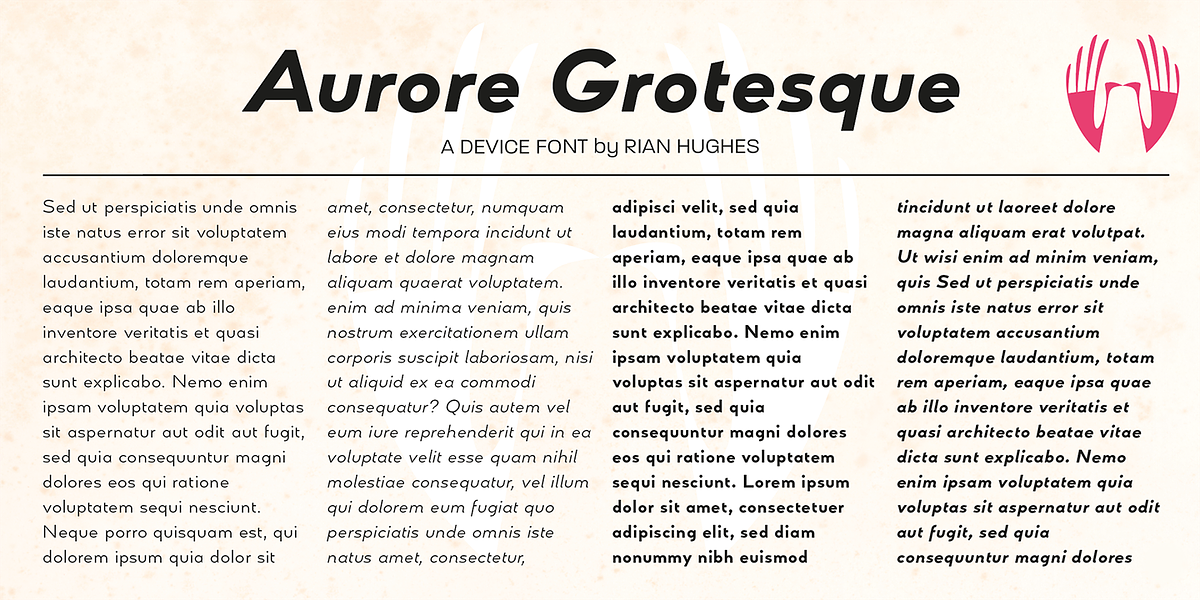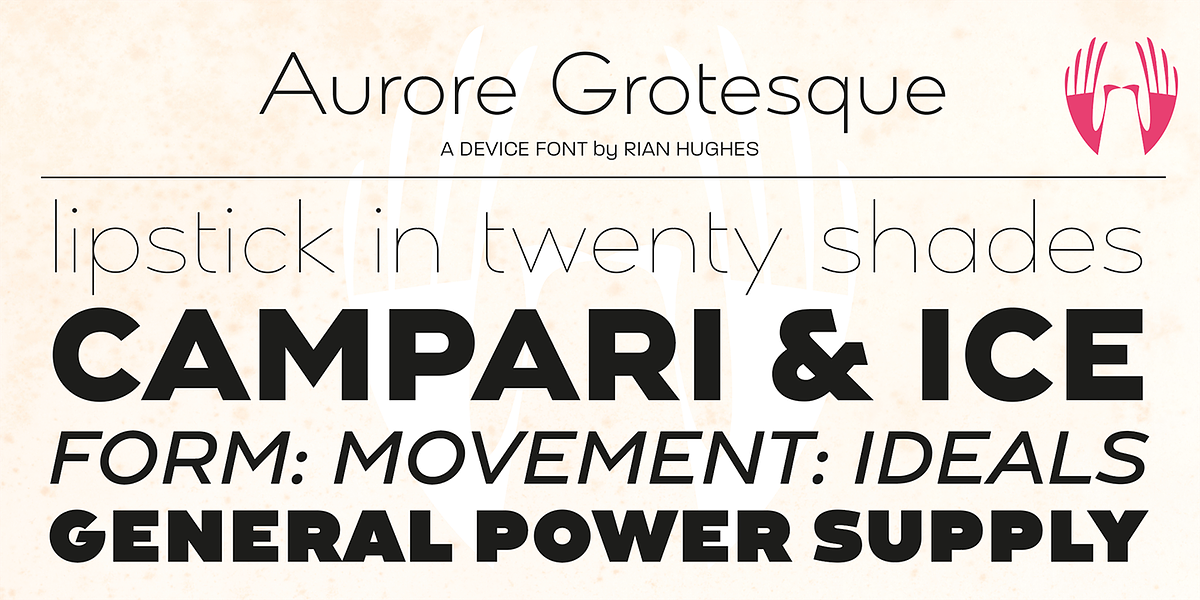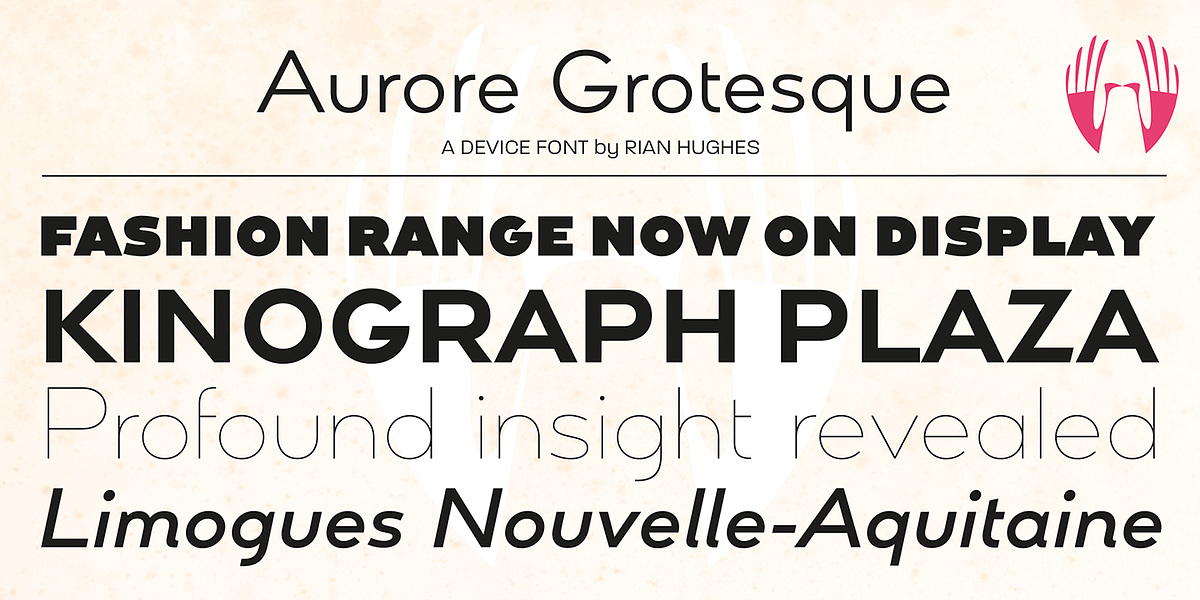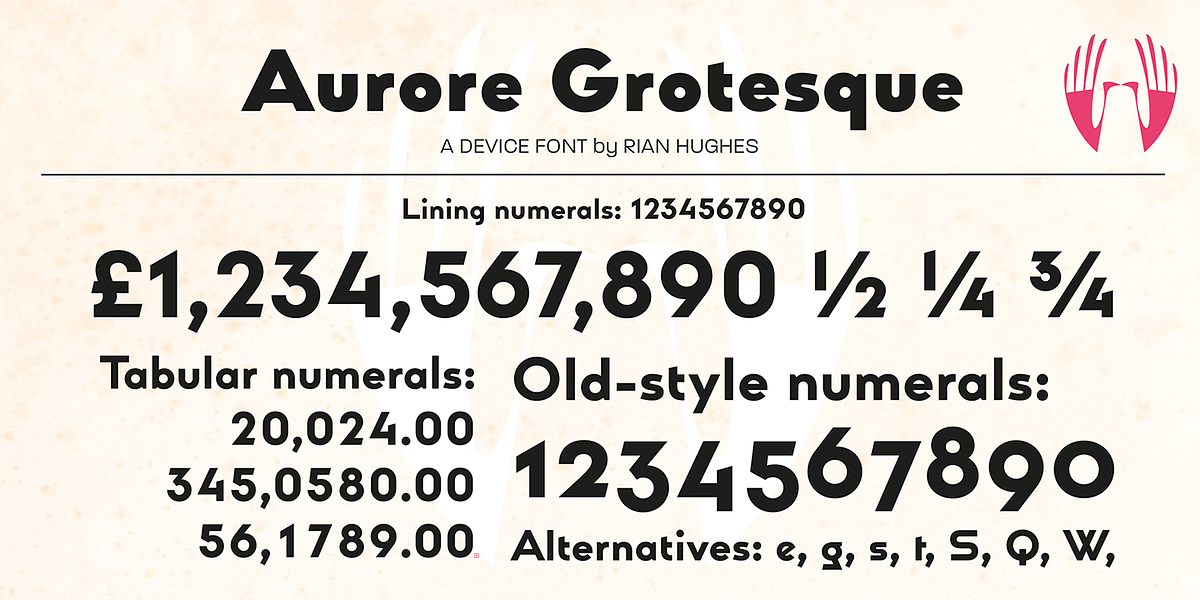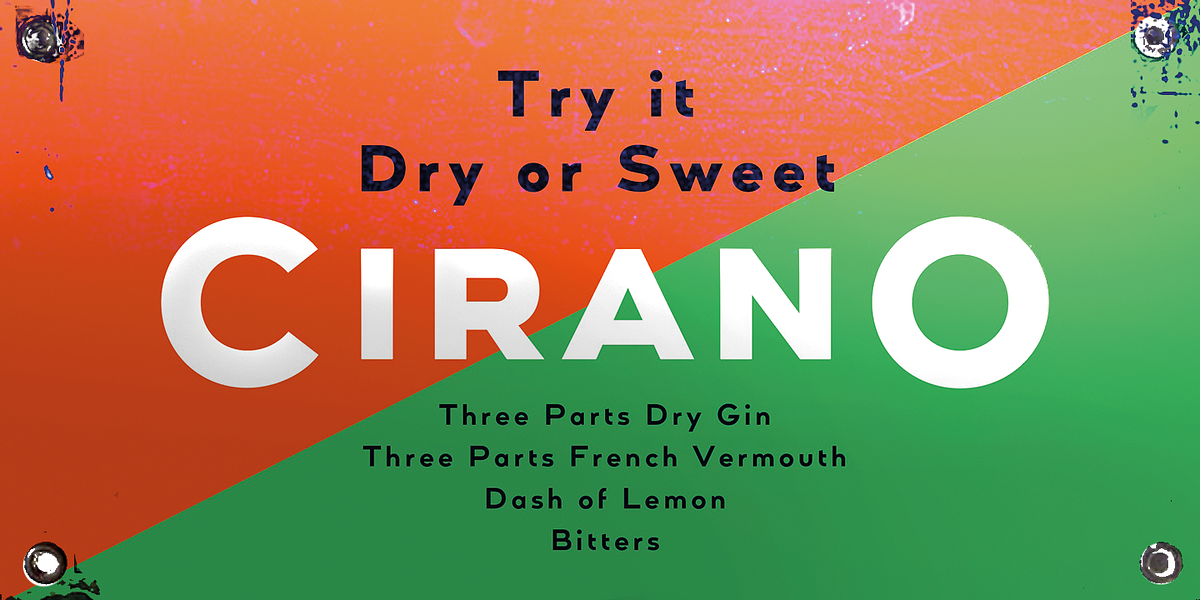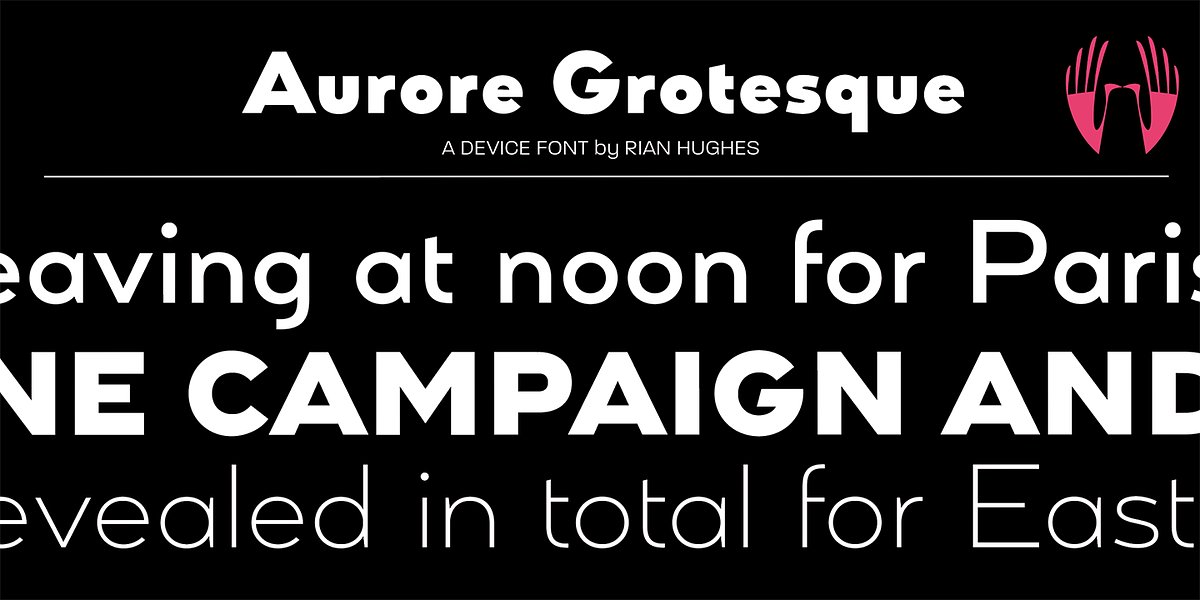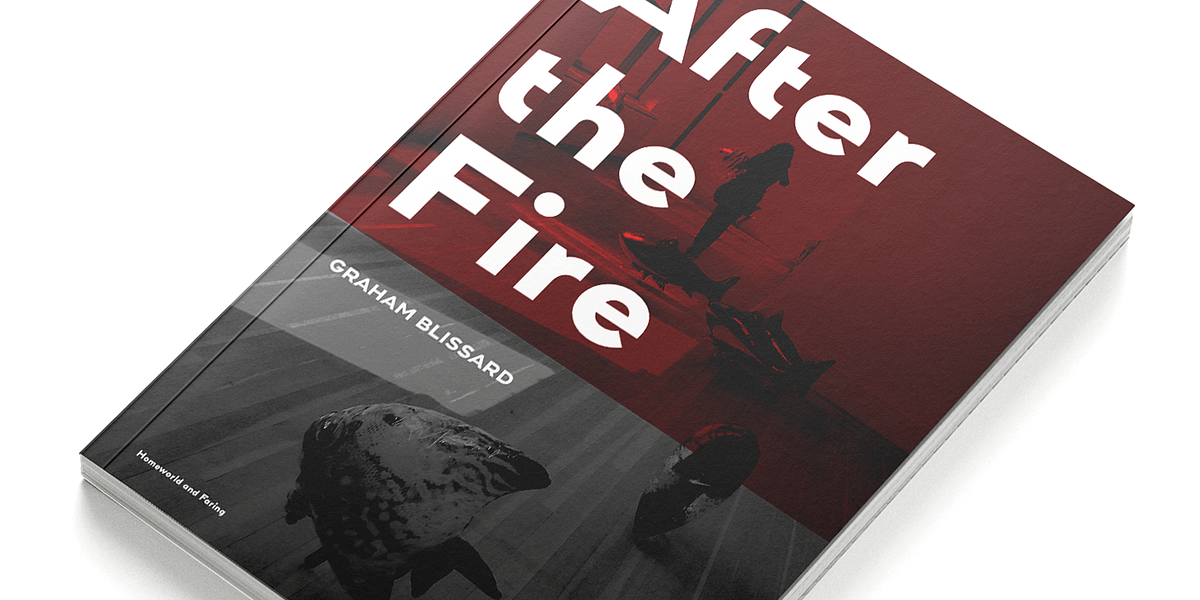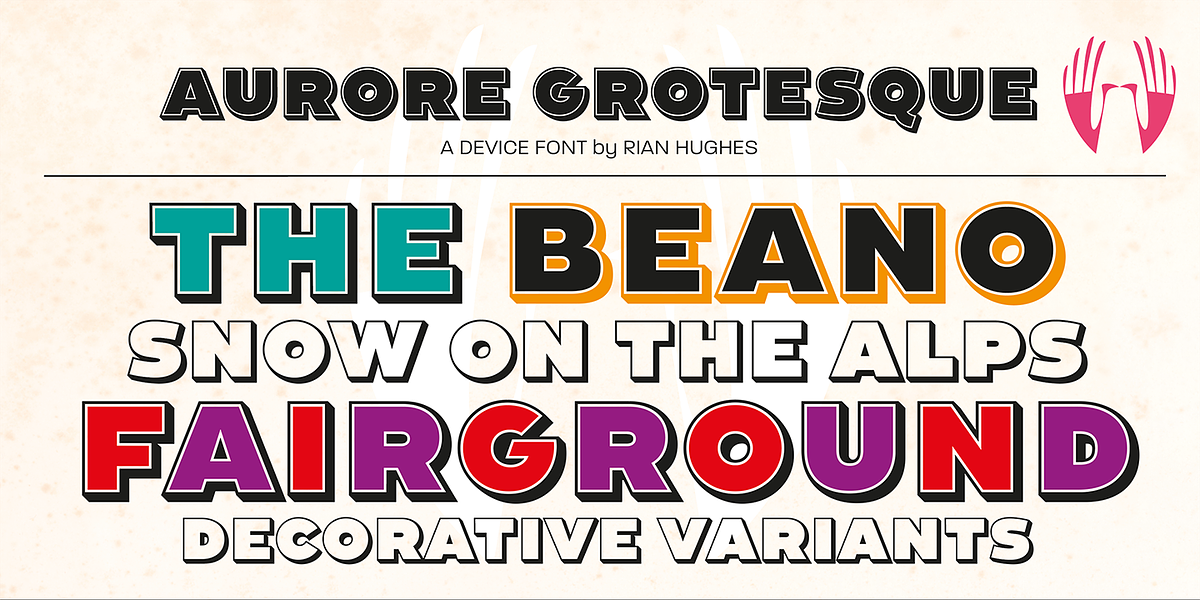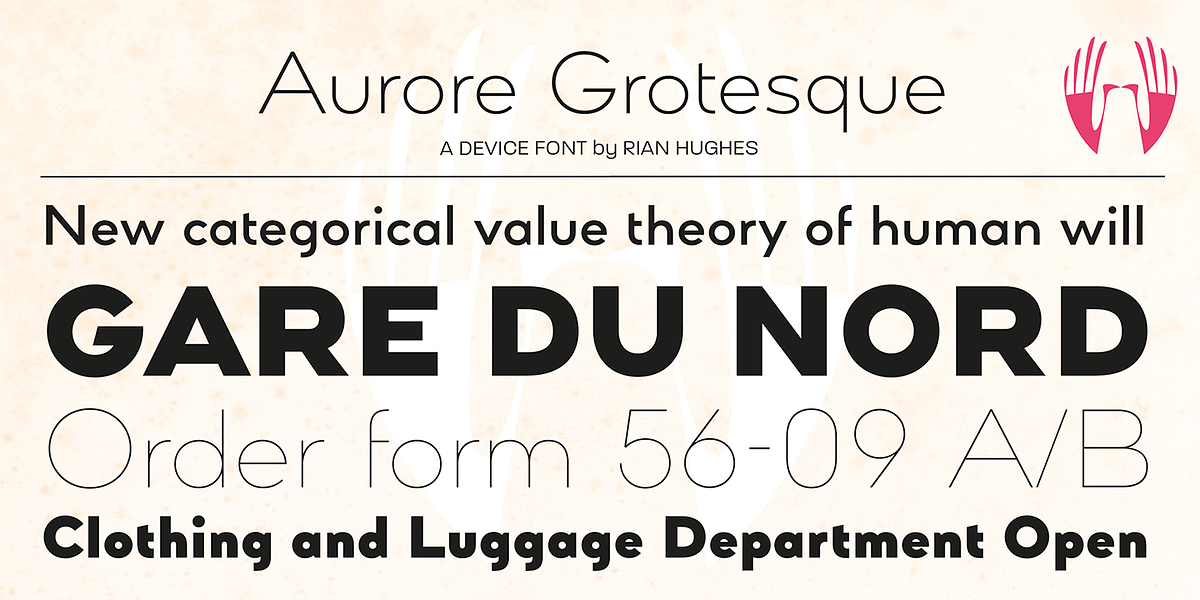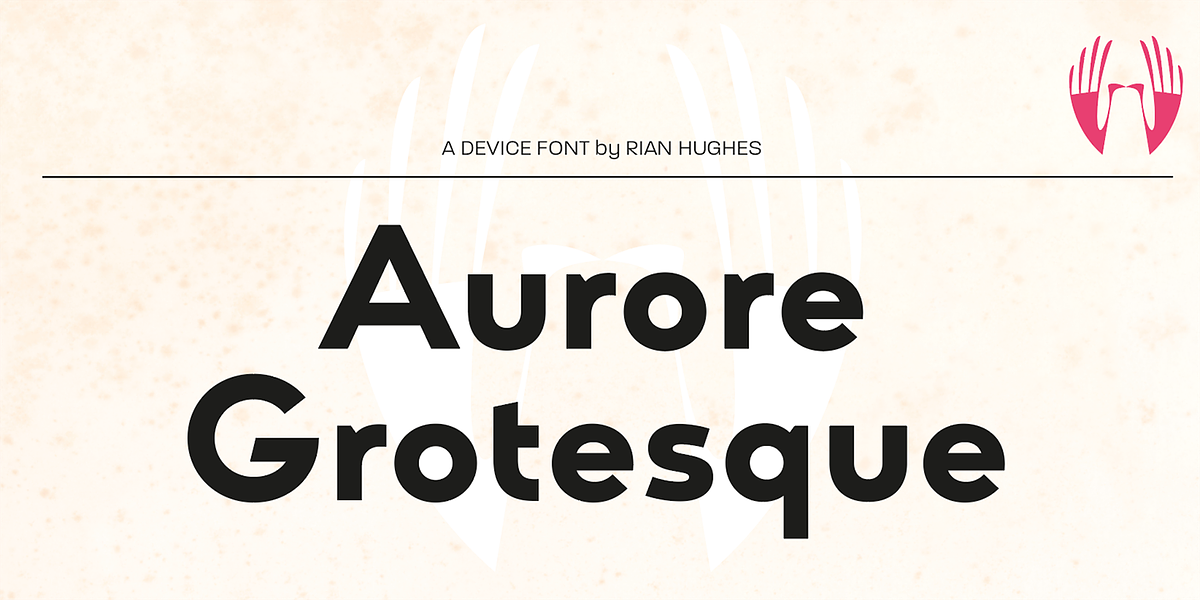
Aurore Grotesque
Aurore Grotesque is a geometric sans serif font designed to be both elegant and robust. It's suitable for use in both text and headlines. The low x-height of the lowercase letters gives it a distinct character when used in paragraphs. The font also includes a capitals-only 'Titling' variant for added weight and impact in headlines. Aurore Grotesque comes with a full range of weights, each accompanied by matching italics, making it versatile for various applications like brochures, magazines, advertising, web design, app development, and corporate branding. It further includes lining, old-style, and tabular numerals, arrows, stylized geometric alternates, and support for a full international character set.